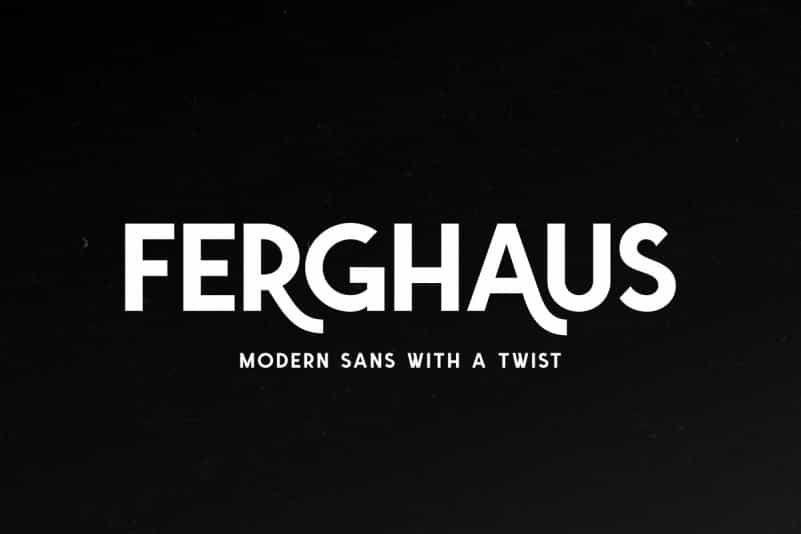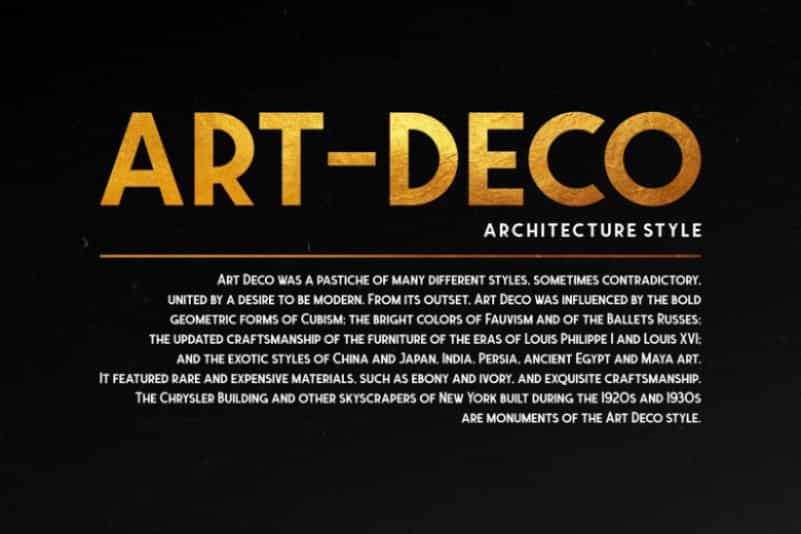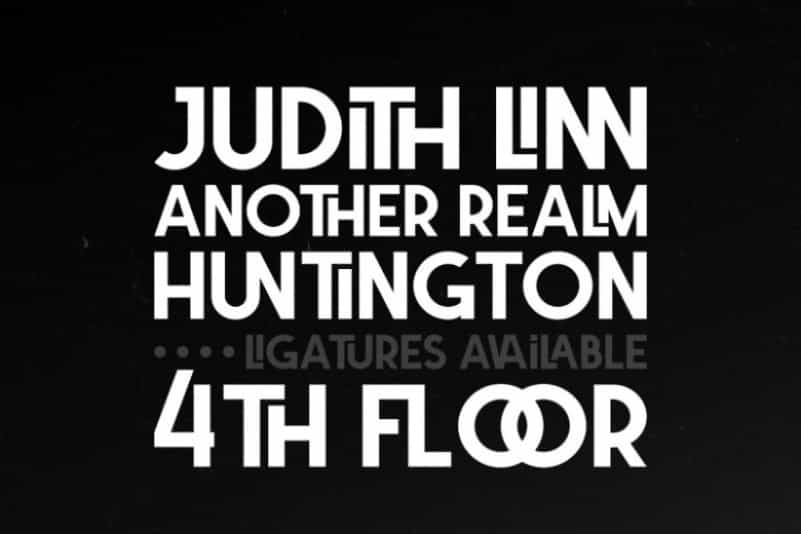
Ferghaus Font – This is a modern heptagon sans serif typeface designed for accessible purposes. The letterforms are made in such a way that they can be read easily. This is a creation and sharing by Twicolabs Fontdation. Ferghaus Sans Font, a contemporary sans serif font. This all-caps font is designed with a great attention to the details, so it looks clean and sharp when you use it in your designs.